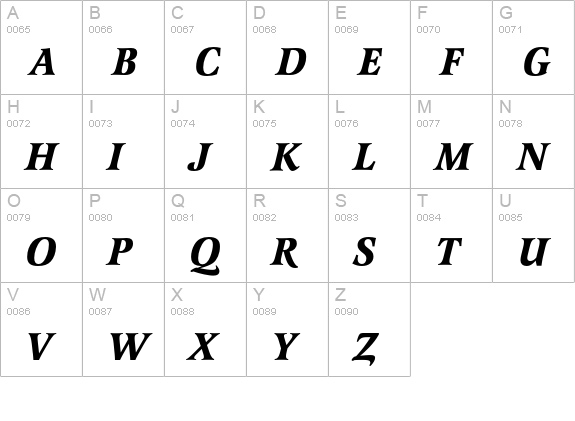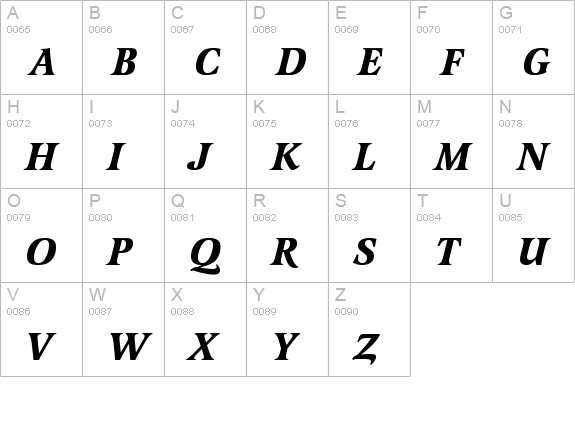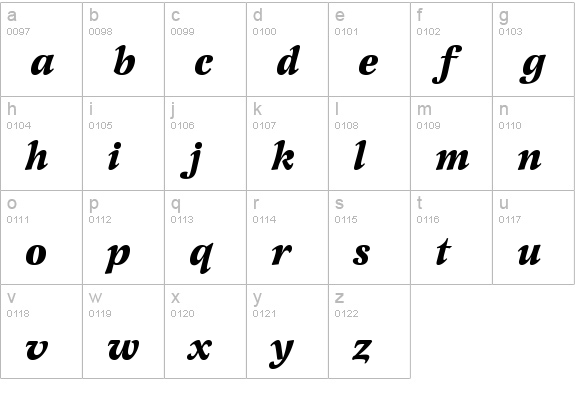
LatienneEF-BoldItalic Font Details
LatienneEF-BoldItalic is a stunning font that effortlessly combines elegance and sophistication. With its bold and slanted characters, this font exudes a sense of drama and modernity. This font is perfect for adding a touch of glamour to any project, whether it be a logo, invitation, or headline. Its flowing curves and graceful letterforms create a sense of movement and grace, making it a standout choice for those seeking a font that is both eye-catching and refined. The versatility of LatienneEF-BoldItalic is further enhanced by its ability to convey different moods and emotions. Whether you want to create a sense of romance and passion or project a sense of power and authority, this font can effortlessly adapt to your needs. But what truly sets LatienneEF-BoldItalic apart is its availability as a free download at FontsMarket.com. That's right, you can now access this stunning font without any cost, allowing you to elevate your designs without breaking the bank. So why wait? Give your projects a touch of elegance and style with the freely available LatienneEF-BoldItalic font. Download it now at FontsMarket.com and let your creativity soar.